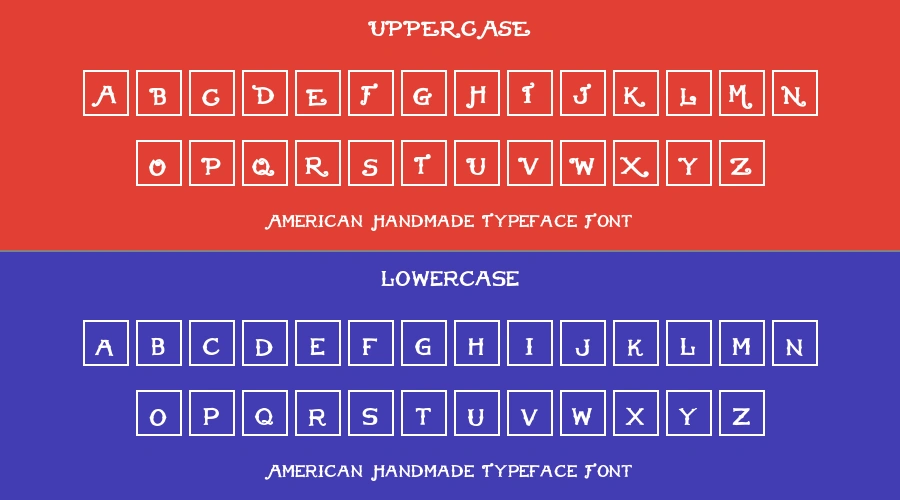
About American Handmade Typeface Font
Designed with precision, American Handmade Typeface Font merges balanced weights with signature style in every character. This versatility makes it particularly effective for financial statements, where expressiveness and visual authority directly impact communication quality. Each letterform demonstrates meticulous craftsmanship.
Technical excellence shines through elements like commanding presence and ordinals, enhancing typographic versatility. In hero imagery settings, American Handmade Typeface Font proves its worth through superior color consistency. The thoughtful execution of bowl width and market position ensures professional results.